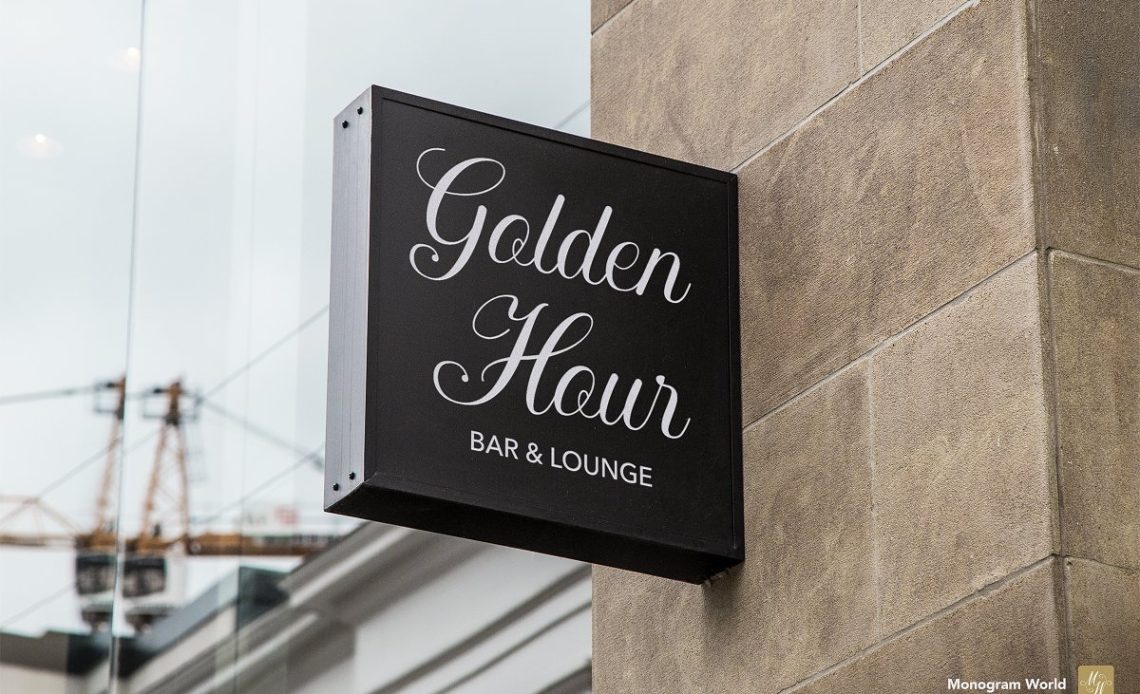
Introducing Monogramica - Unique Ligature Font, the perfect font family for cursive letters that has been specifically designed to cater to all your needs. Created by Florian Grunt, Monogramica is the first real monogram font that includes 676 premade uppercase monograms, which are easily accessible through automatic ligatures. Just type A + B, and the monogram AB appears, making it the best font for cursive letters.
Monogramica Script is an elegant calligraphy typeface that features 135 decorative frames, making it a versatile logo creator kit for any sophisticated or luxury business. It's perfect for use in branding identity, product packaging, or even for single applications like embroidery, engraving, or any other printed item. The font style of Monogramica is based on classic calligraphy type but with a modern touch, which makes it a perfect choice for fashion, jewelry, art ateliers, handicraft studios, wine & spirits, hotels & resorts, or fine restaurants & bars.
With Monogramica, you can create logos & wordmarks within seconds. The font contains all two-letter combinations from AA to ZZ as real interlaced lettering artworks, making it possible to generate 91,260 possible logo variations. The font has got lowercase & uppercase letters, numbers, punctuation, and many special characters, covering the major western languages.
Overall, Monogramica is an elegant display typeface that is ideal for use in any of your design projects, making it a must-have for any designer who wants to create something sophisticated and unique.